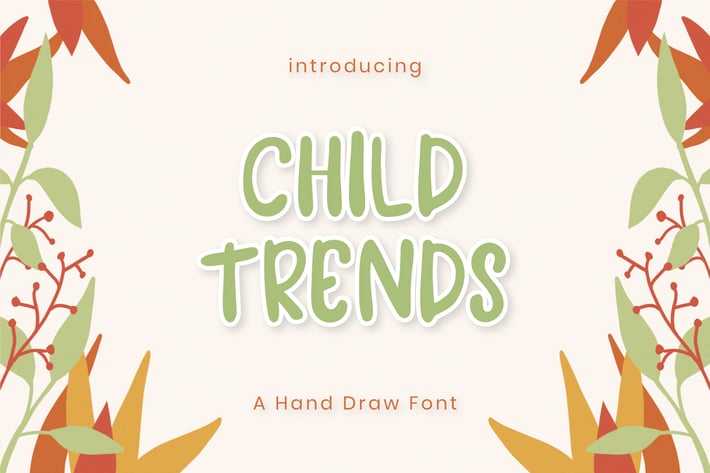
Child Tren - Display Font
Introducing Children Trends handwriting font, a new font with the style of the fun bounce and bold. Which is you can create a cute and fresh design.
Children Trends is very suitable for logo design, kids t-shirts, birthday cards, cover book, magazine, flyer, quotes, packaging and of course much more.
This font comes in uppercase, lowercase, punctuations, symbols & numerals, ligatures, etc.